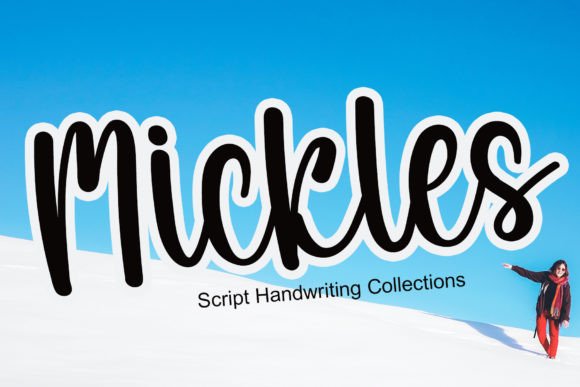
Journey into the world of Mickles Font, a cursive masterpiece that dances across your designs with a sweet and enchanting charm. This script font, crafted with finesse by YanStudio, is not just a collection of letters; it's an artistic expression that brings life to your creative endeavors.
Mickles Font is a visual symphony, flowing gracefully like a river, carrying your words on its gentle waves. Its curves are like petals unfurling, adding a touch of elegance and romance to every project. Whether you're designing branding materials, crafting logos, conjuring wedding invitations, or creating greeting cards, Mickles Font is your perfect companion.
Imagine your business plan, adorned with the Mickles Font, exuding confidence and sophistication. Its graceful lines convey a sense of professionalism, while its playful charm captures the attention of your audience. Mickles Font is the perfect font for fashion and lookbook designs, adding a touch of elegance and glamour to your products. Use it for marketing promotions and watch as your campaigns blossom with creativity and style.
Mickles Font is not just a font; it's an experience. It's a way to express yourself, to share your story, and to leave a lasting impression. With its versatility and endless possibilities, Mickles Font is the perfect choice for anyone who wants to add a touch of magic to their designs.
So, embrace the beauty of Mickles Font, let your imagination soar, and create designs that captivate and inspire. Mickles Font is more than just a font; it's an artistic journey waiting to be explored.